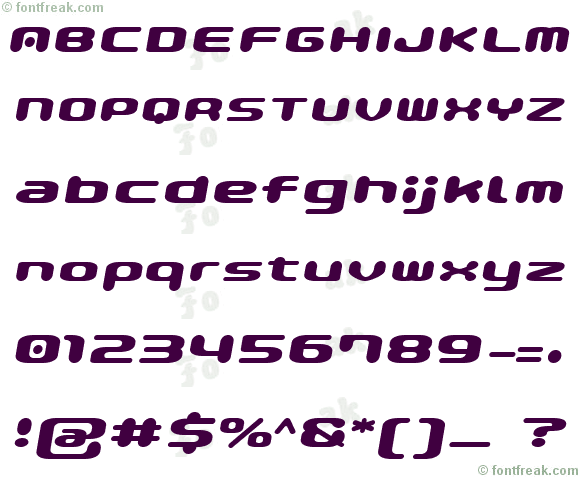
GauFontPopMagic
About GauFontPopMagic
GauFontPopMagic, created by GRAPHIC ARTS UNIT, is a striking display font that captures attention with its unique character. This font falls into the category of decorative typefaces, making it ideal for projects that require a bold and playful aesthetic. The visual characteristics of GauFontPopMagic are defined by its moderate stroke weight, which balances strength and legibility. The letters feature a delightful mix of rounded and angular shapes, creating a dynamic contrast that adds a sense of movement and energy. The spacing is well-considered, allowing the characters to breathe while maintaining a cohesive look, making it perfect for various design applications.
This font is particularly well-suited for creative endeavors such as eye-catching movie posters, vibrant event flyers, and trendy restaurant menus. Its playful nature also makes it a fantastic choice for branding projects targeting younger audiences or for businesses in the entertainment and creative industries. Graphic designers and small business owners alike will find GauFontPopMagic to be an invaluable addition to their font libraries, enabling them to craft engaging visual narratives.